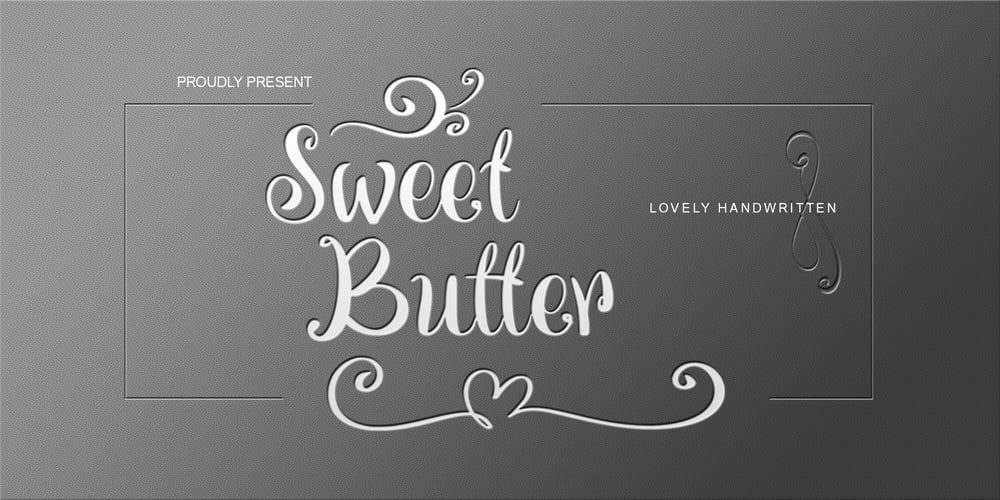
Sweet Butter Font Family was designed by Saefulloh and published by Attractype. Sweet Butter contains 1 styles and family package options. This lovely handwritten font is great for adding a personal touch to your design.This font look great on posters, invitations, greeting cards, quotes, crafts, fashion, food banners, branding, stationery, and more!10 beautiful ornaments (swashes) in this font can be accessed on the number characters.